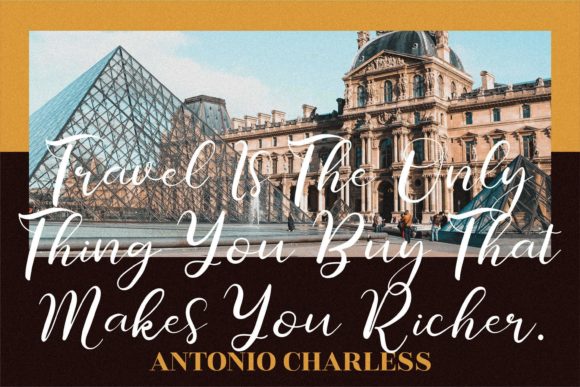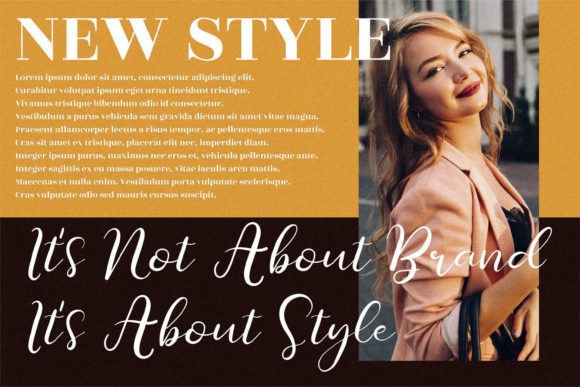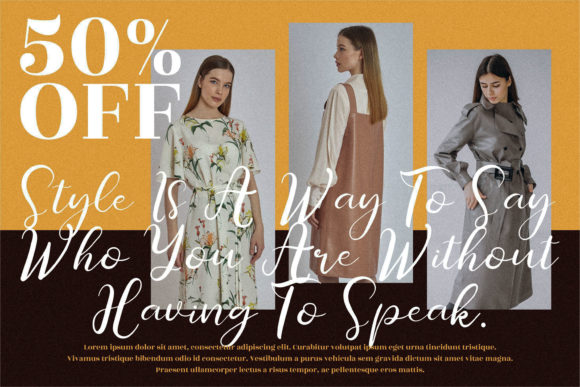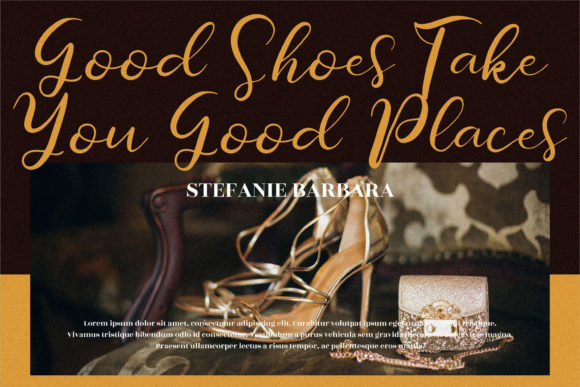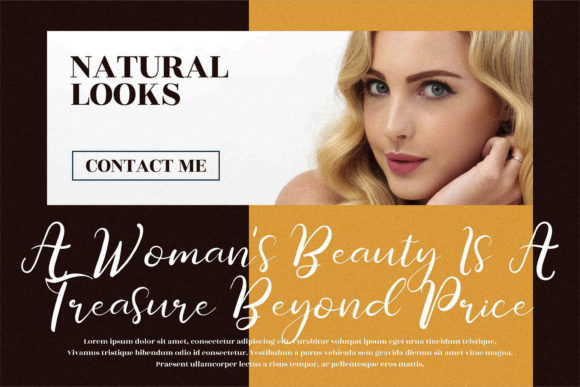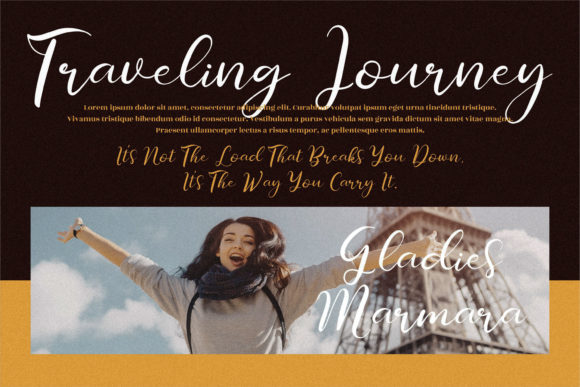
Introduction to Roslitta Aganta Font
Have you ever stared at a blank page, feeling the pressure to create something truly special? It’s that moment when you’re about to embark on a creative project, and you need the perfect font to set the tone. For designers and artists, the right font can be the difference between a good design and a great one. That’s where the Roslitta Aganta Font comes in – a beautiful and refined script font that exudes elegance and sophistication.
With its modern look and PUA encoding, this font is a valuable resource for any designer. It’s perfect for logos, branding, invitations, stationery, and even social media posts. The best part? It’s available for free download, making it an accessible design resource for anyone looking to elevate their creative project. Whether you’re working on a high-quality design or need a font with a transparent background, the Roslitta Aganta Font is sure to impress.
Roslitta Aganta Font
- Includes 6 styles with varying weights and widths for added versatility
- Unique characteristic: Elegant and sophisticated design aesthetic, making it ideal for high-end branding and marketing materials
Honest Review: Roslitta Aganta Font
As a designer, I’m always on the lookout for high-quality fonts that can elevate my creative projects. Recently, I had the chance to try out the Roslitta Aganta Font, and I’m excited to share my thoughts with you.
- ✨ The font is incredibly versatile and can be used for a wide range of creative projects, from logos to brochures.
- ✨ The high-quality design ensures that the font looks great on any background, including transparent backgrounds.
- ⚠️ The font doesn’t come in a wide range of weights, which can be a drawback for designers who like to have options.
- ⚠️ Some users may find the font to be a bit too ornate for their taste.
Overall, I’m impressed with the Roslitta Aganta Font, and I think it’s a great addition to any designer’s toolkit. While it may not be perfect, its high-quality design and free availability make it a valuable resource for any creative project.
Roslitta Aganta Font
The Roslitta Aganta Font is a high-quality design resource that can elevate your creative project. It’s available for free download and features a transparent background, making it perfect for various design applications.
Tips for Getting the Most Out of Roslitta Aganta Font
For the best results, use the Roslitta Aganta Font on a high-contrast background and adjust the font size and style to suit your design needs.
The Roslitta Aganta Font is perfect for various design applications, including:
- Website headers and footers